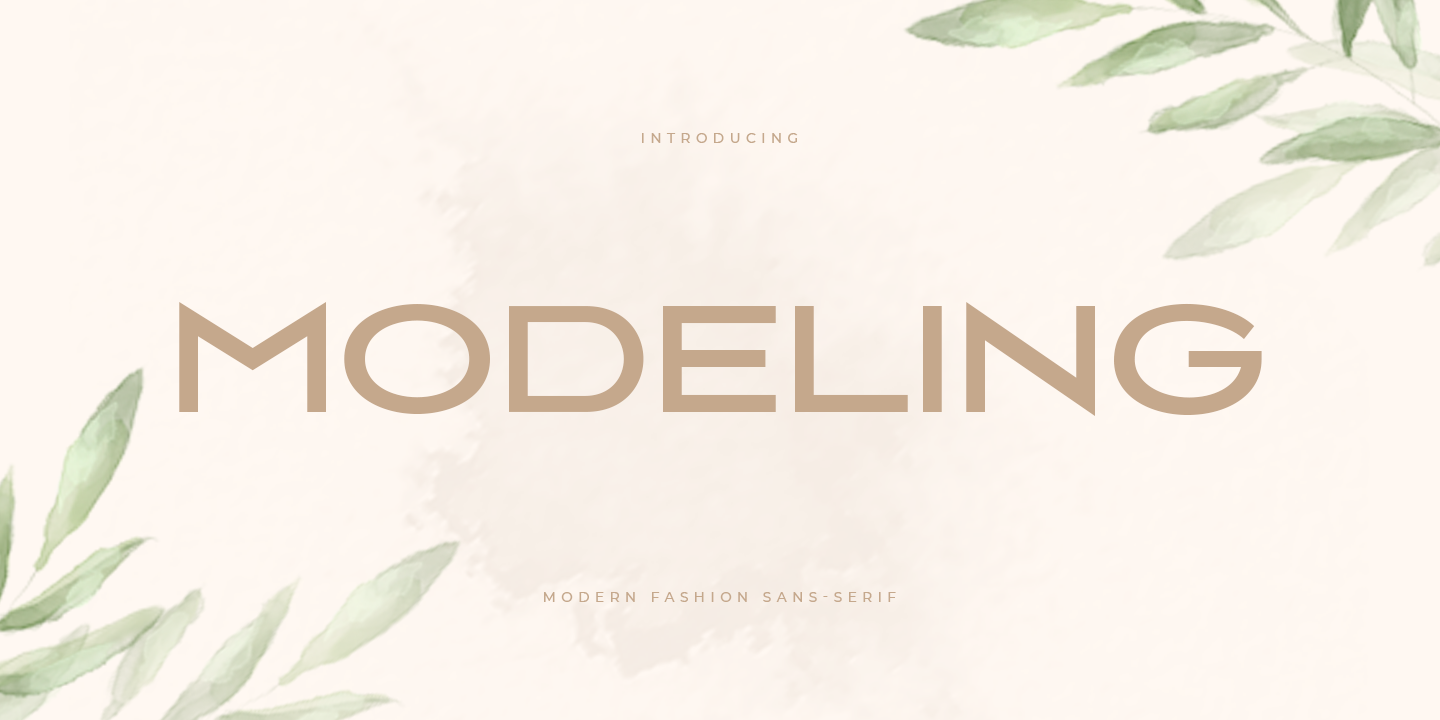
Modeling SS Font is perfect for fashion agency branding, modeling portfolio layouts, haute couture magazine designs, runway show materials, beauty brand campaigns, fashion photographer identity, luxury fashion catalogs, model casting presentations, and glamorous social media content. This sophisticated typeface brings runway elegance and fashion industry prestige to both digital and print design applications.
Modeling SS Font is exciting because it embodies the sleek sophistication and glamorous precision of the fashion modeling world, making it an exceptional choice for designers who want to convey high fashion elegance with authentic runway style. Its refined letterforms and structural beauty provide the perfect combination of fashion sophistication and professional functionality, ensuring your projects communicate style excellence, glamorous appeal, and fashion industry credibility that resonates with audiences seeking authentic high fashion experiences.
The Modeling SS Font family includes elegant weight variations and fashion elements, featuring light, regular, and bold weights with complementary italic styles, sophisticated ligatures, and fashion-inspired decorative details. Each style maintains consistent runway aesthetics while offering flexibility for different fashion applications, allowing designers to create glamorous visual systems that reflect fashion industry standards and modeling excellence.
Whether you're designing for fashion brands, modeling agencies, or beauty companies, Modeling SS Font Free Download delivers authentic fashion appeal and runway sophistication that connects with audiences seeking genuine high fashion experiences. This premium typeface offers designers the glamorous elegance and fashion precision needed to create designs that communicate runway style, fashion industry excellence, and modeling sophistication effectively. The font's fashionable character makes it perfect for fashion branding, runway campaigns, and modeling applications where authentic fashion credibility is essential. Download Modeling SS Font today and style your creative projects with genuine fashion sophistication and runway typography excellence that defines high fashion standards.